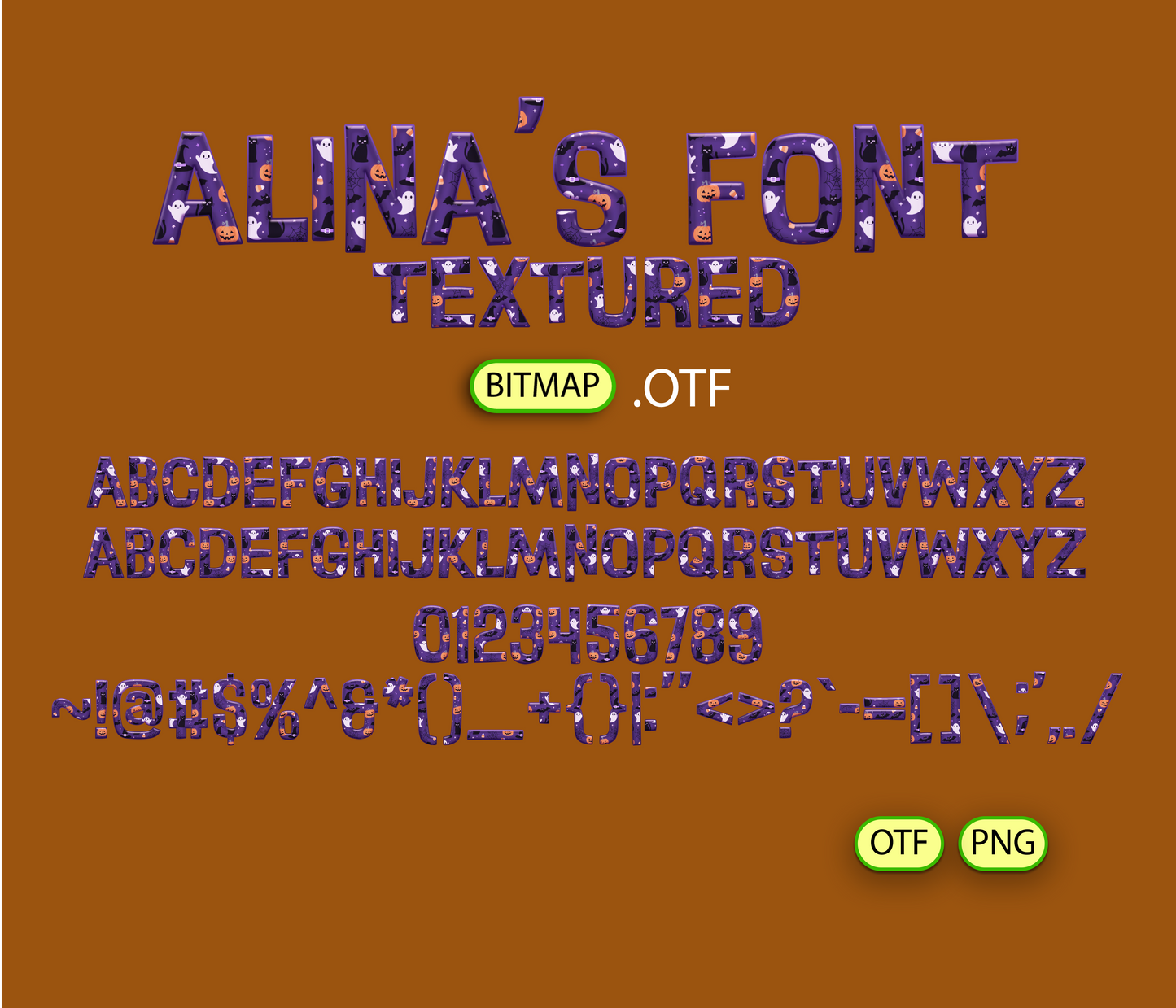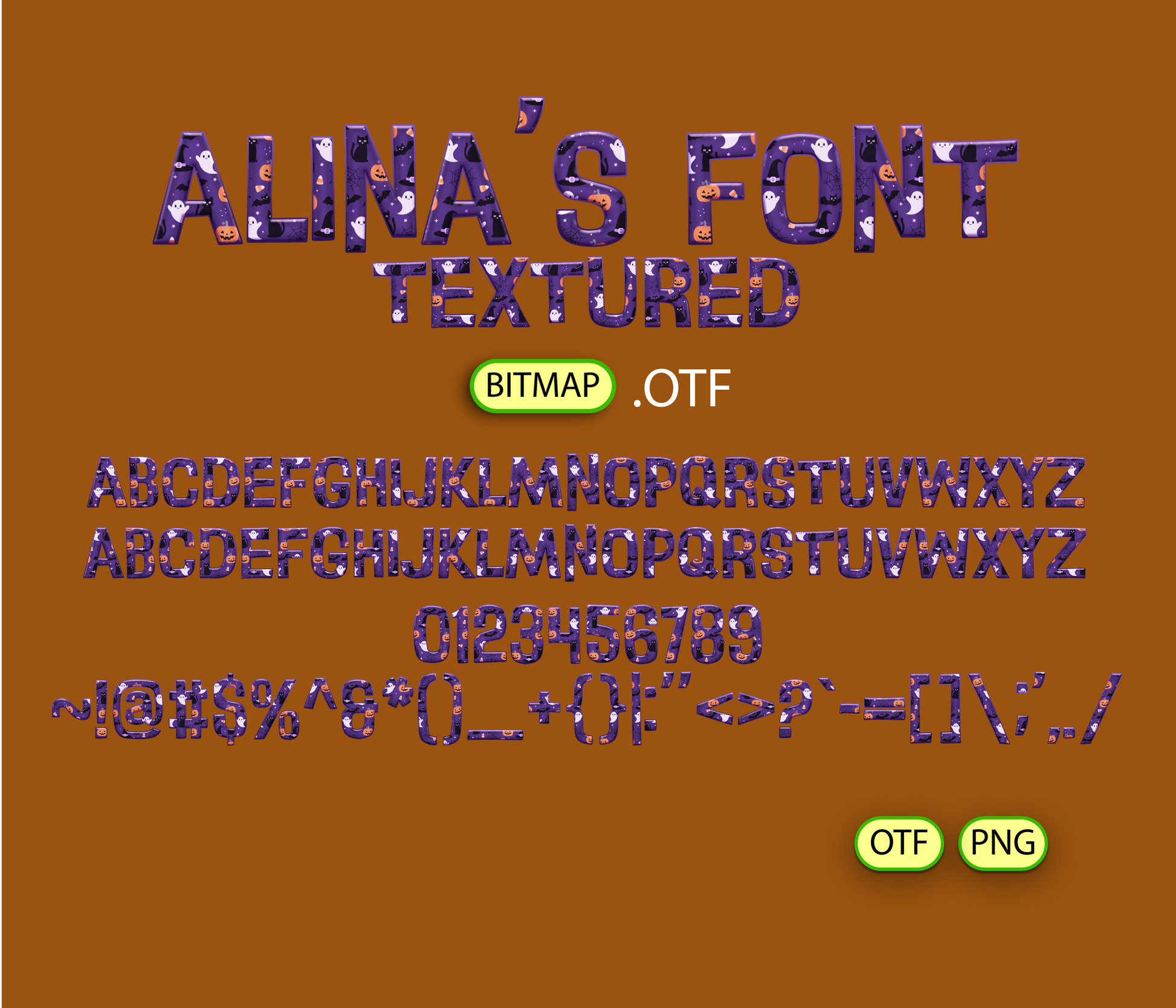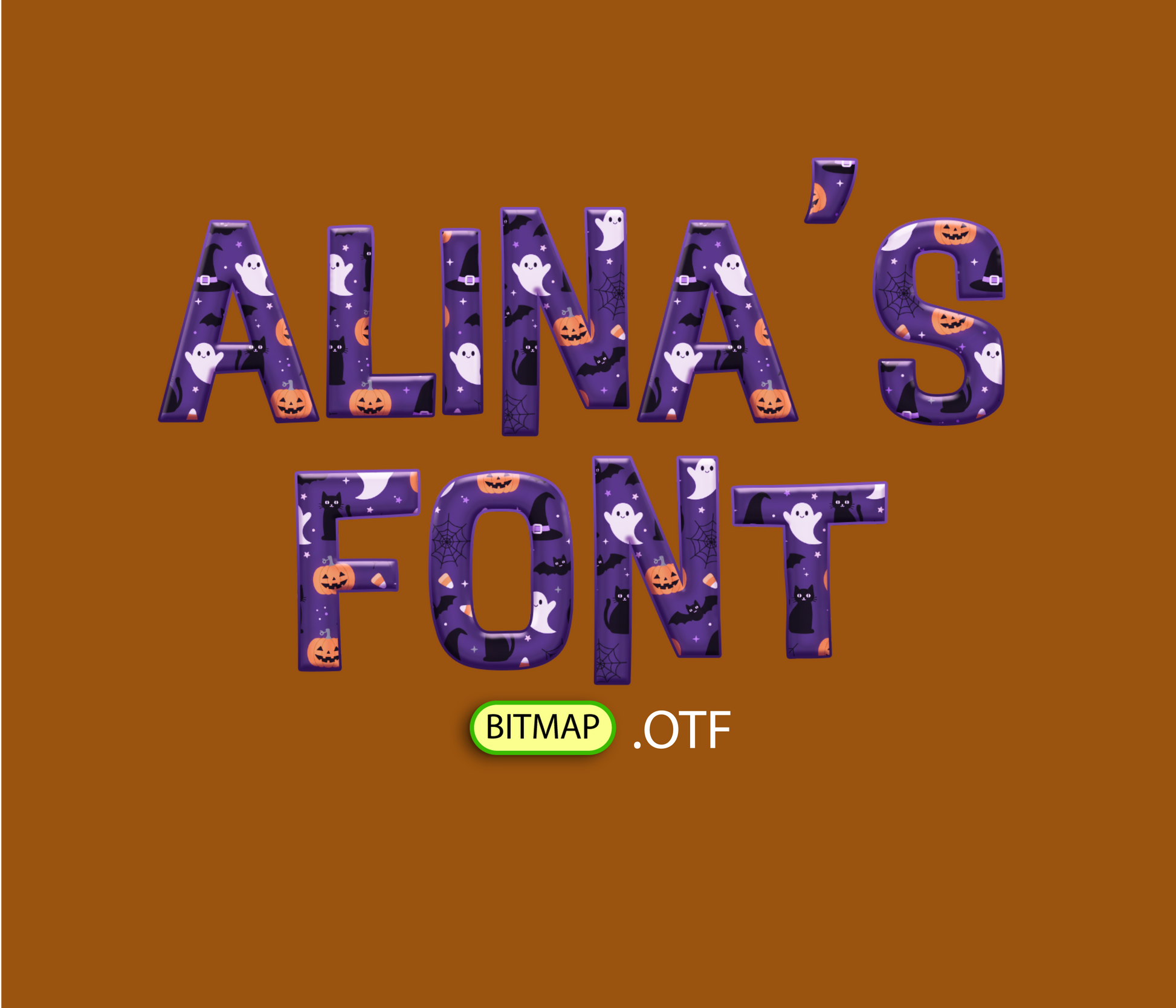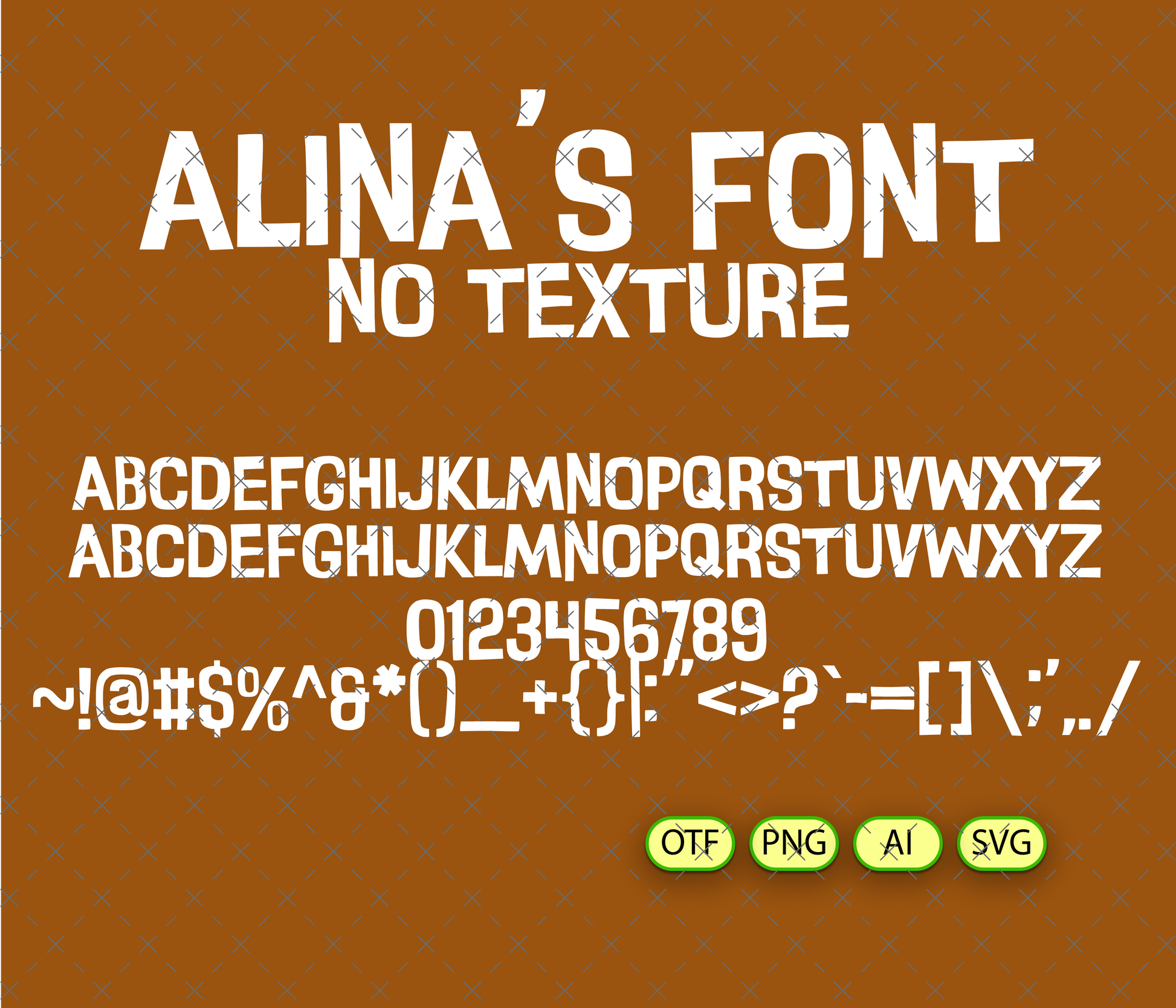
FREE Halloween Pumpkin Ghosts Pattern Font
Step into the spooky world of haunted celebrations with our Halloween Pumpkin Ghosts font, capturing the essence of jack-o-lanterns and spectral spirits. Perfect for Halloween enthusiasts, party planners, event organizers, and designers, this font brings the eerie, festive spirit of haunted nights to your projects. Create spine-chilling materials, merchandise, or digital content with the frightening energy of October celebrations.
Our Halloween Pumpkin Ghosts font features spooky, playful lines and haunted characters reflecting the world of October festivities. Ideal for:
Our font pays tribute to the iconic world of Halloween festivities, empowering your designs with its spooky and playful spirit. Whether crafting promotional materials, designing merchandise, or adding a frightening touch to personal projects, this font communicates the eerie essence of October celebrations. Ready to inject haunted magic into your creations? This font is your key to exciting, impactful design.